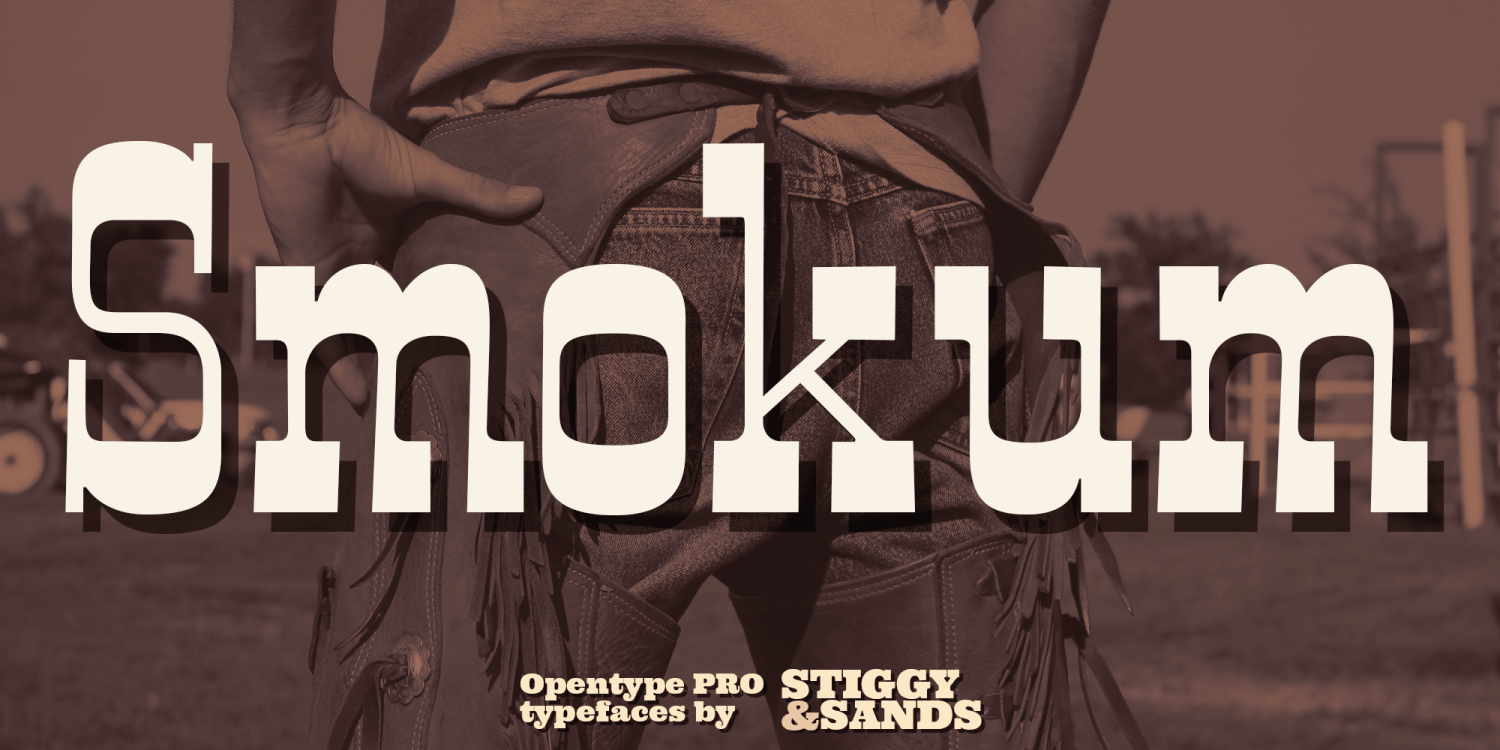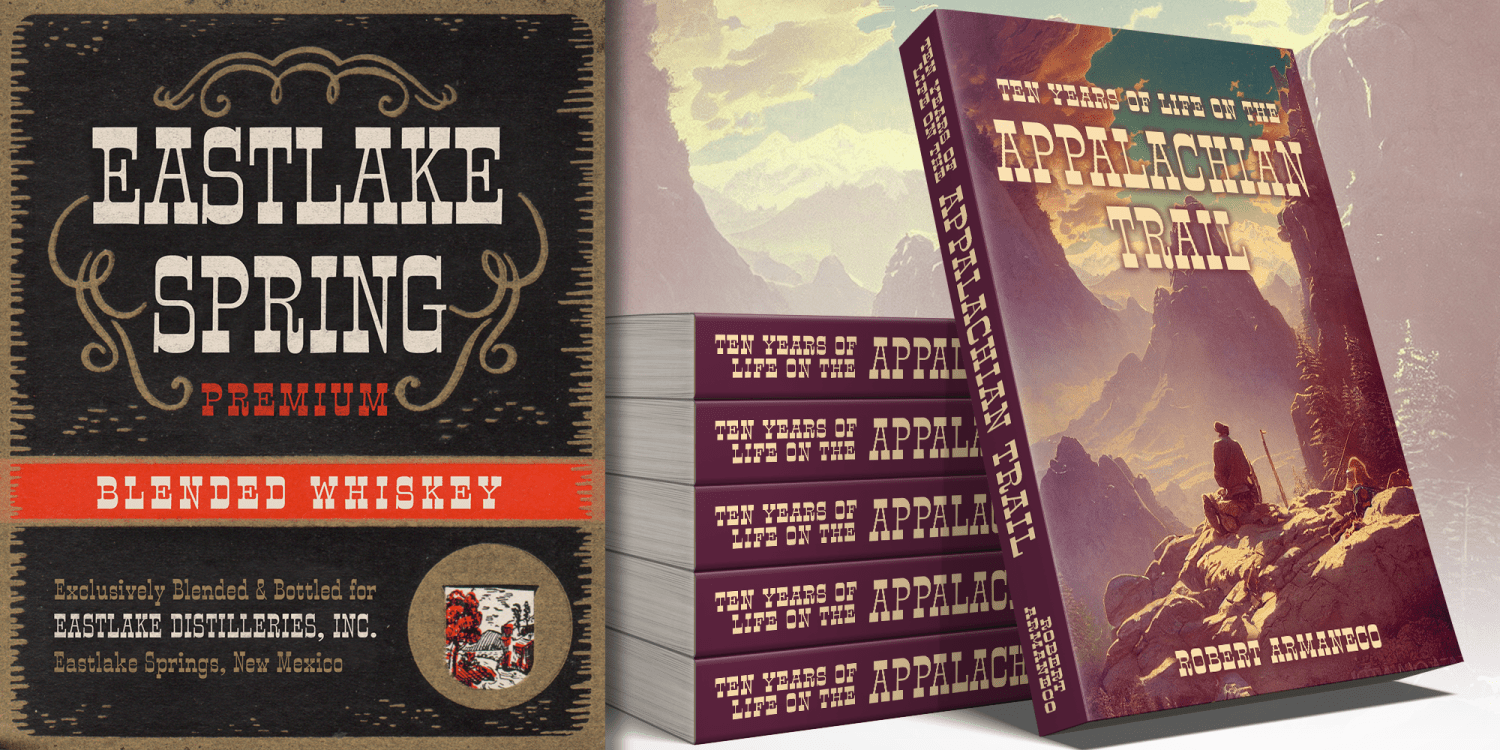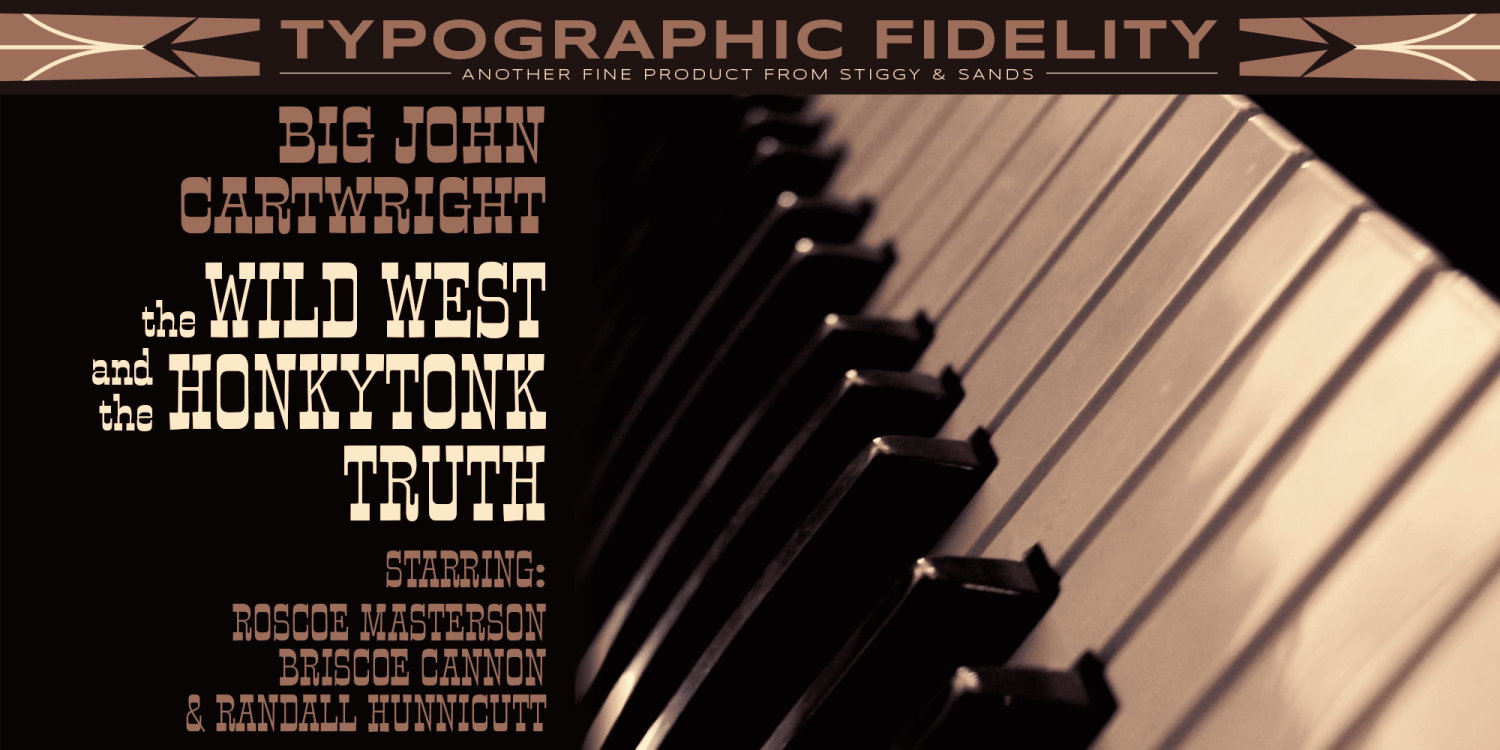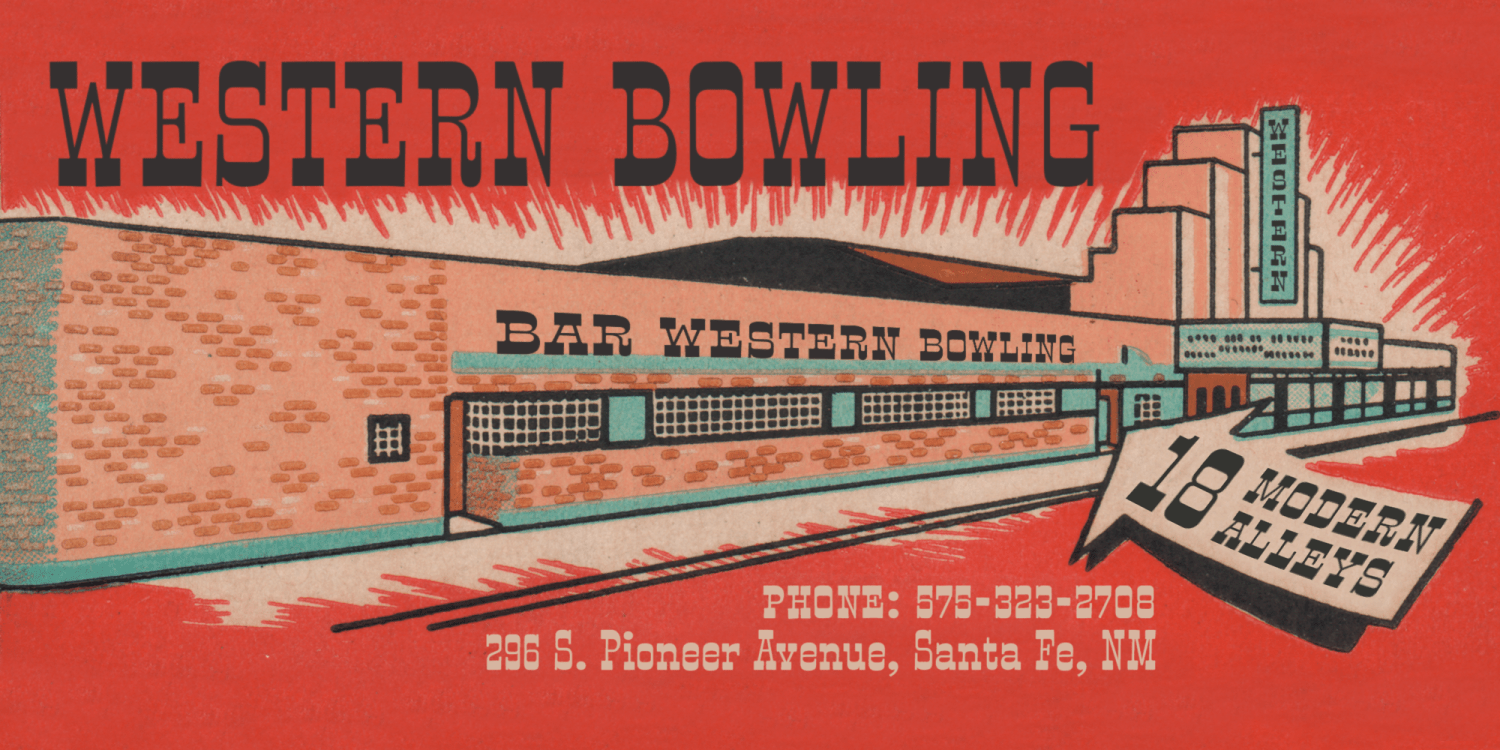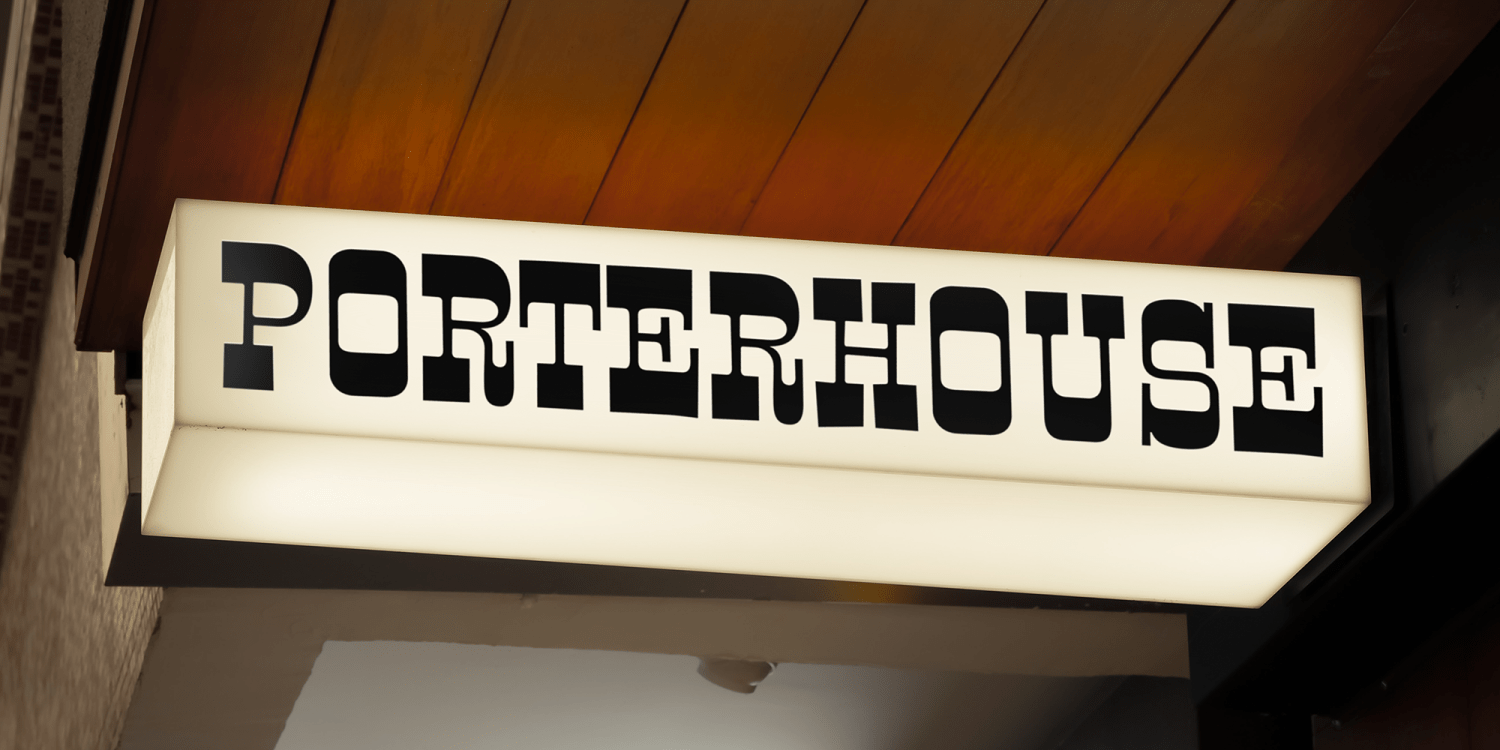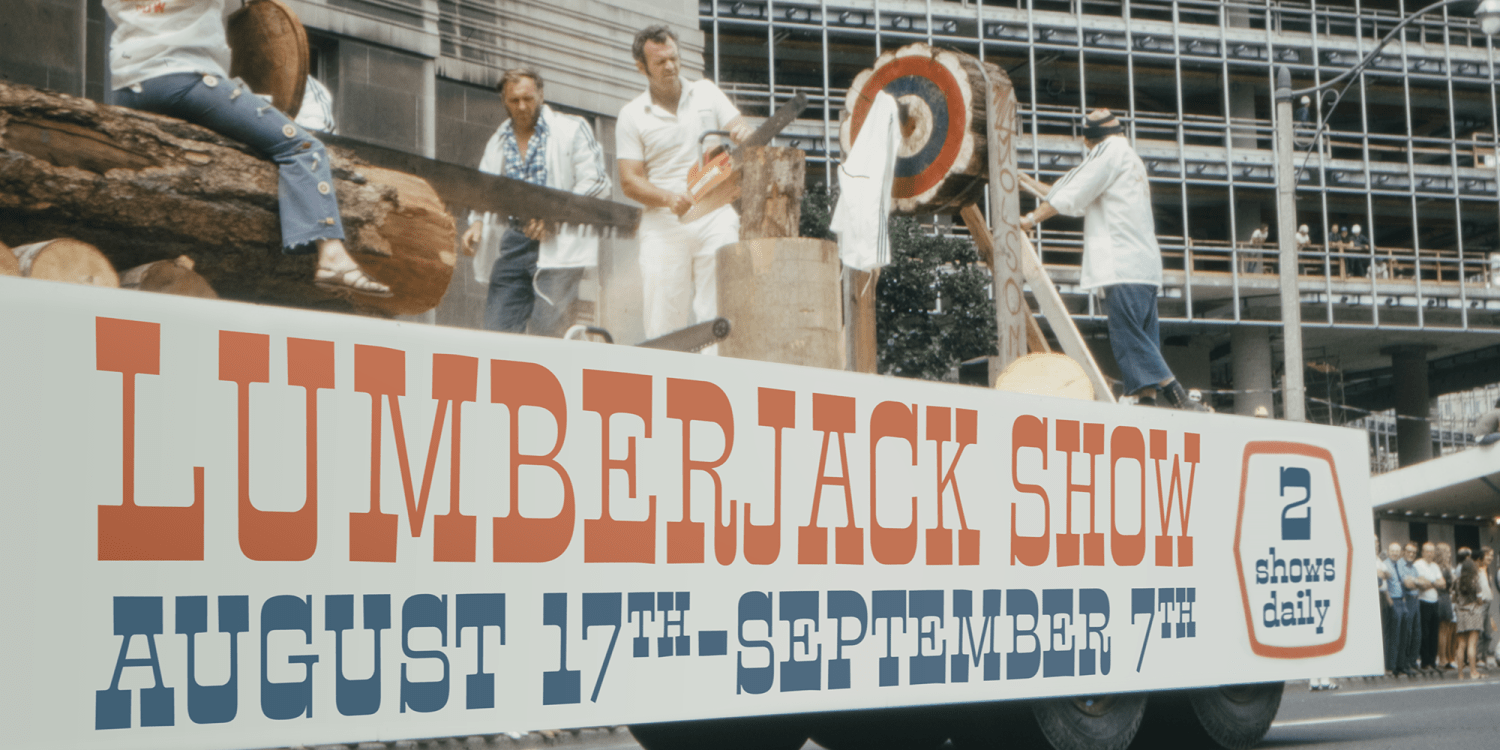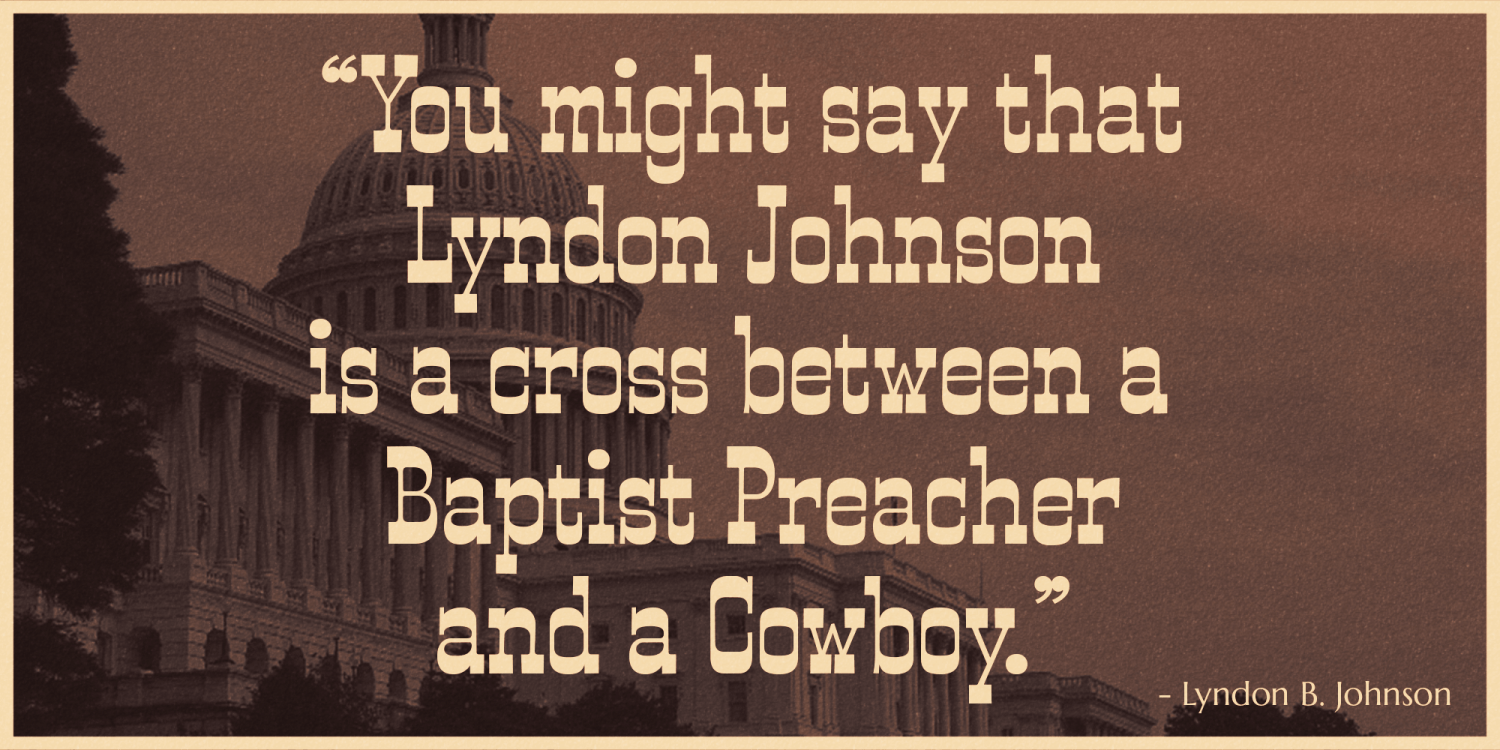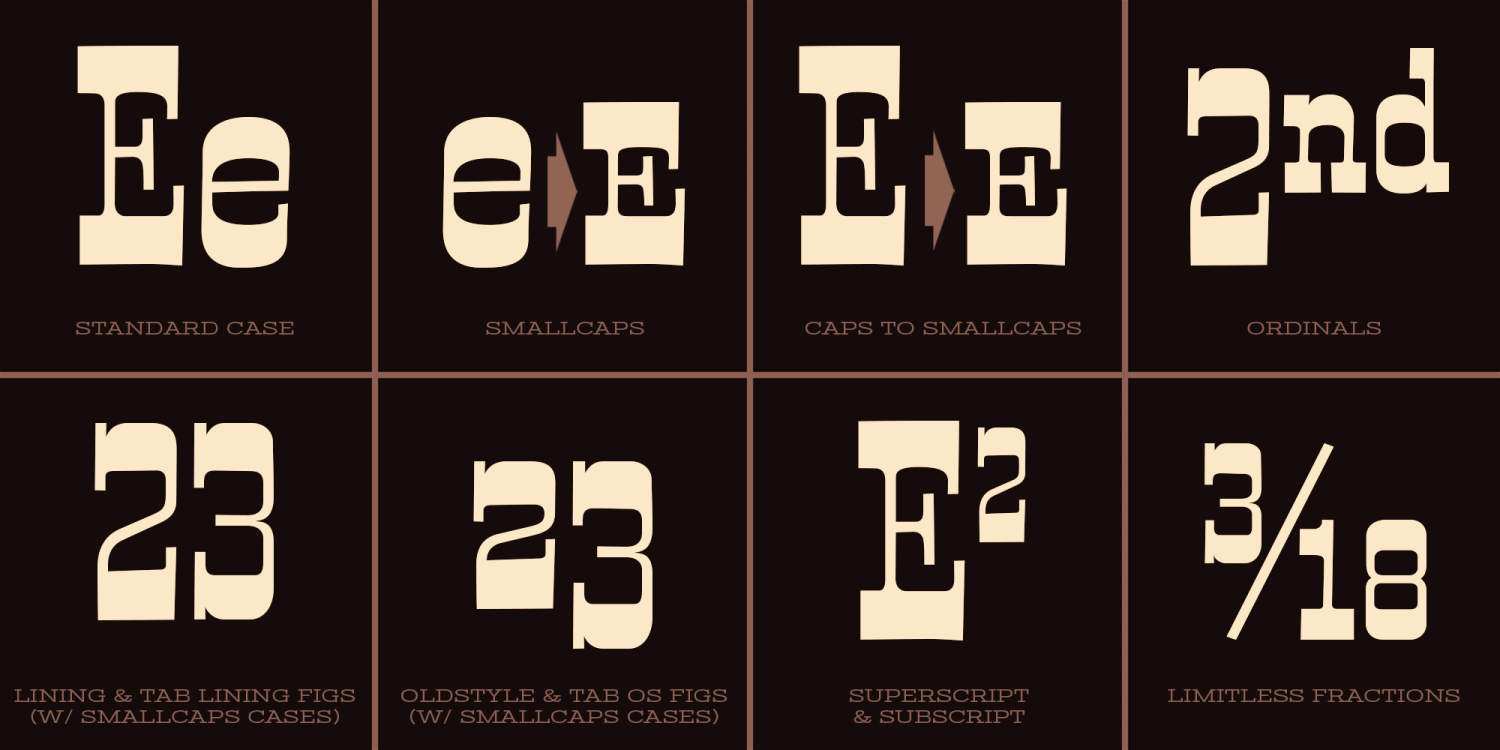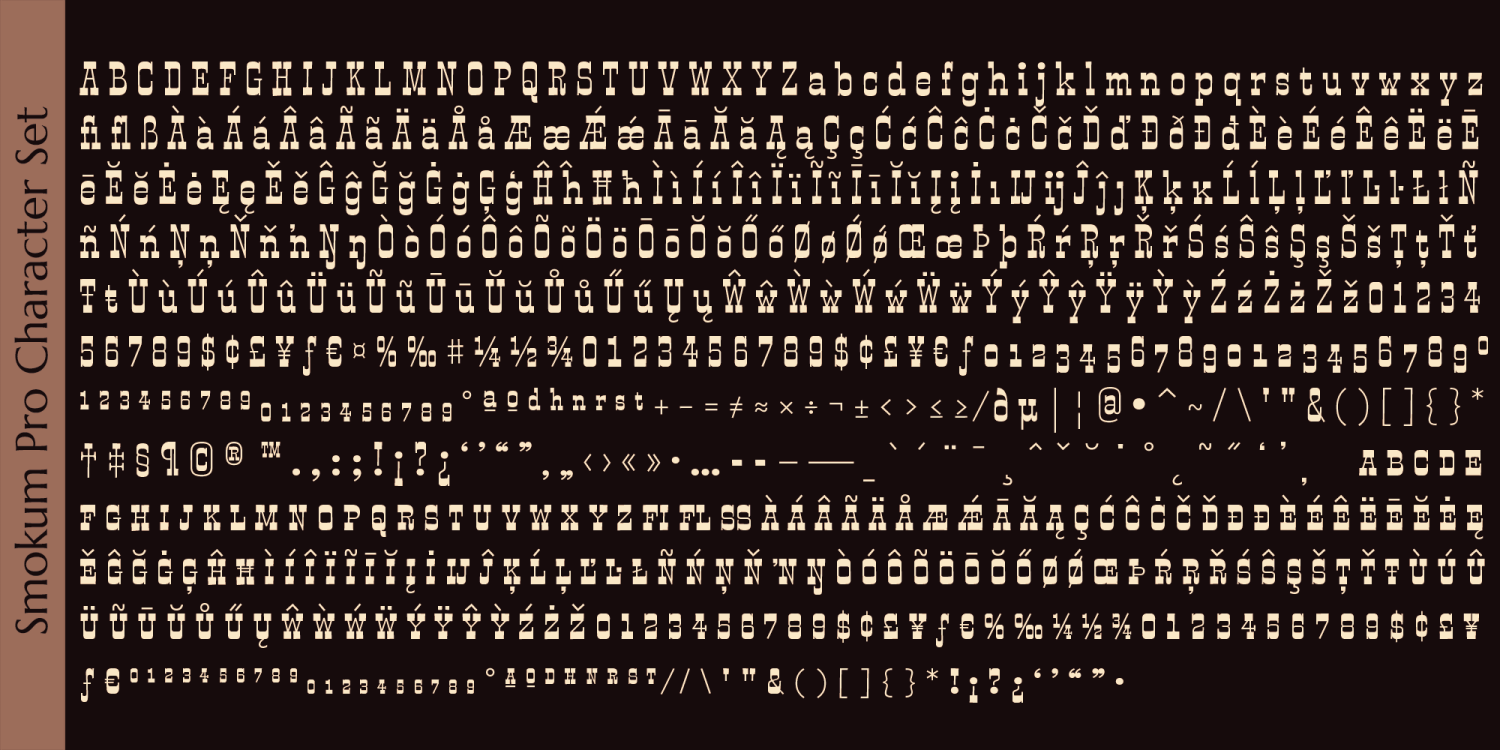
Smokum Pro
Font Family by Stiggy & Sands
Our Smokum Pro is a western inspired slab-serif font with a little playful swagger to it. It's perfect for headlines and display uses that require a little loosened up country flair, but because of the contrast of thicks and thins, it will perform best as a WebFont at medium to large point sizes. The SmallCaps and extensive figure sets offer a little more serious tone and a wider range of design use.
Opentype features include:
- SmallCaps.
- Full set of Inferiors and Superiors for limitless fractions.
- Tabular, Proportional, and Oldstyle figure sets (along with SmallCaps versions of the figures).
- Stylistic Alternates for Caps to SmallCaps conversion.